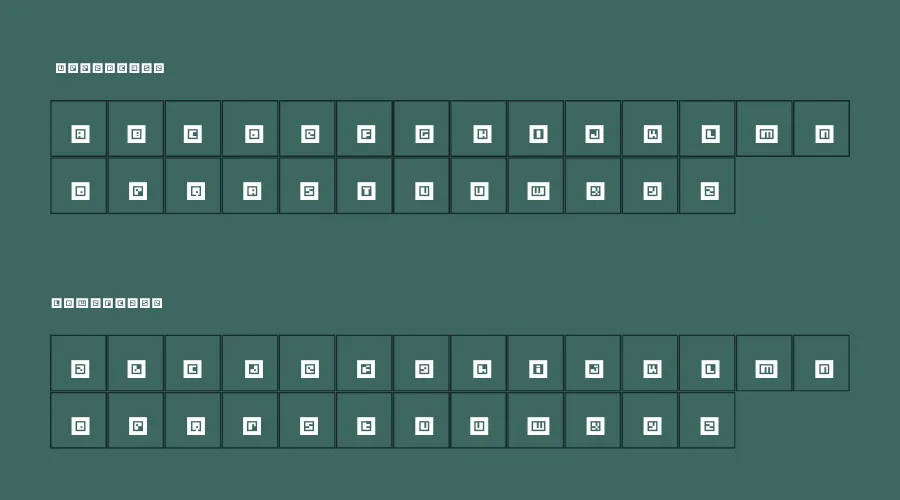
About Metrobot Font
Now, going to present to you the free typeface named Metrobot font, this attractive and good-looking texture was invented by Russell A. McGormanand and issued through Our House Graphics. It is under the category of the techno texture family and is suitable for both CSS and adobe photoshops.
It includes 6 unique styles and weights. This is simple to use with the Raptor Attack Font to create a variety of projects. It is a flexible and unique texture that may be utilized to construct greeting cards, business cards, birthday cards, and office cards.
It has a great favor style that oddly offers the usage of smart notices and symbol programs. With its many features, it is perfect for a range of tasks and techniques. This font gained popularity in a very short time after it was issued in the font world.
Metrobot Font |